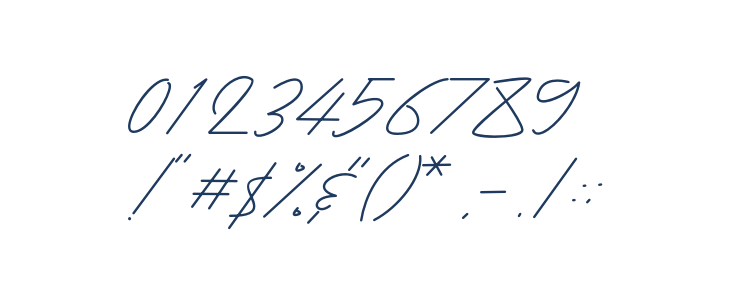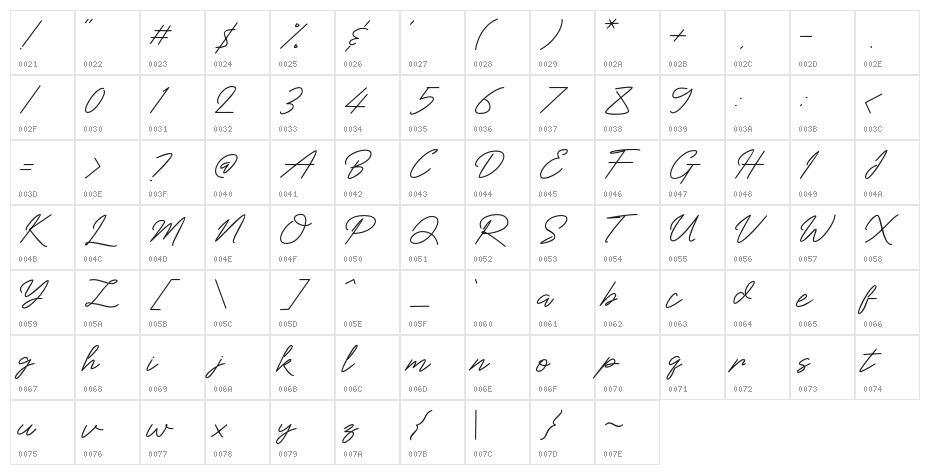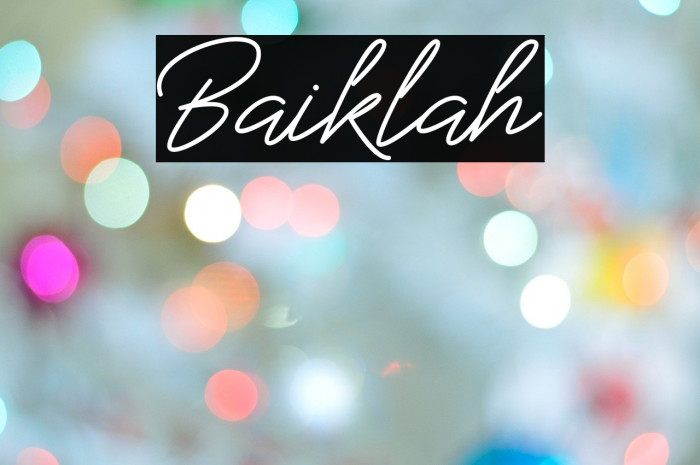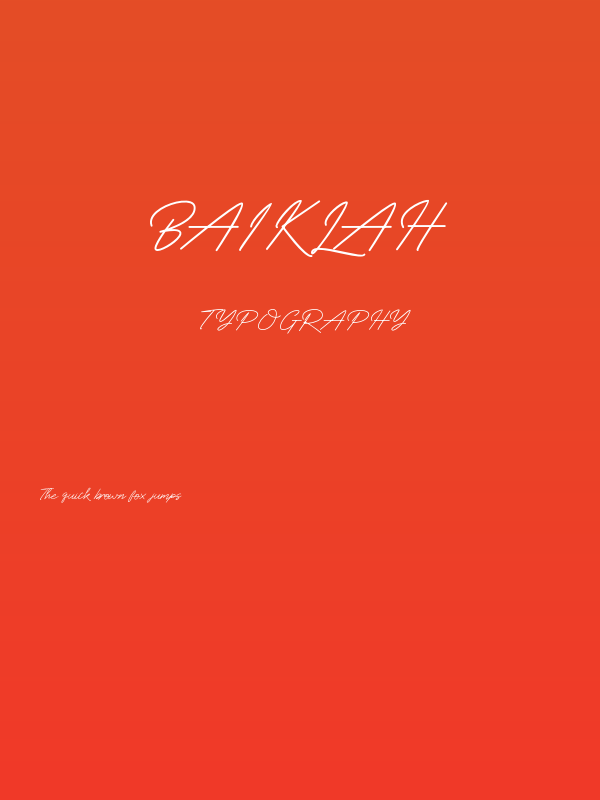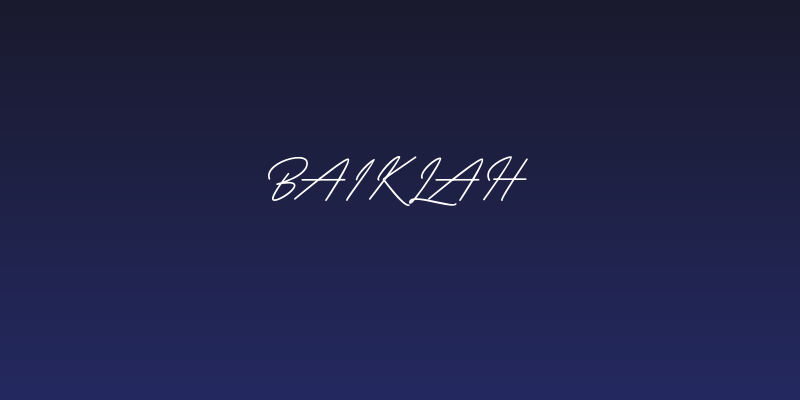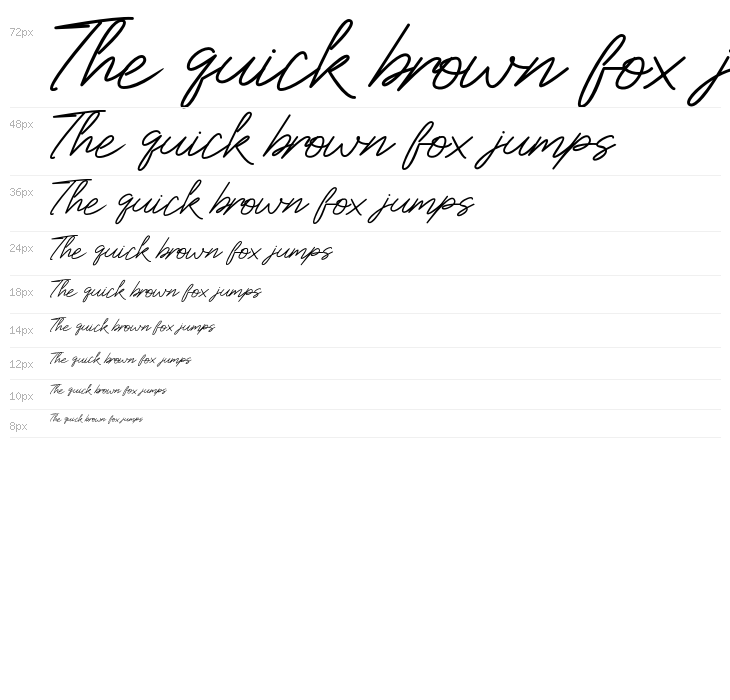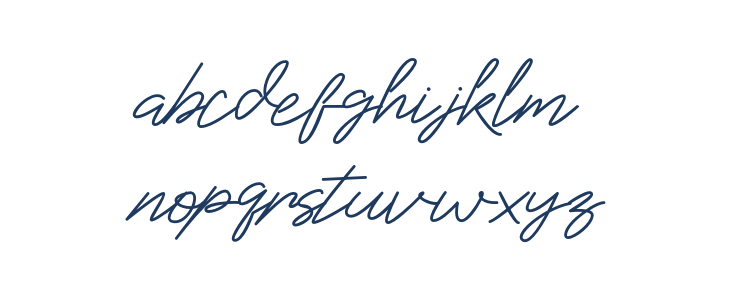
Baiklah Font
Baiklah Description
This font features a flowing, cursive style with elegant, connected strokes that mimic natural handwriting. The uppercase letters are slightly more angular, providing a dynamic contrast to the smoother lowercase letters. The numbers and special characters maintain the same fluidity, ensuring consistency throughout the typeface. The overall design is both sophisticated and approachable, making it suitable for a variety of applications where a personal touch is desired.
| Use Case | Logos, Invitations, Personal Correspondence |
| Proposed Projects | Ideal for wedding invitations, personal branding, greeting cards, and any project that requires a personal, elegant touch. |